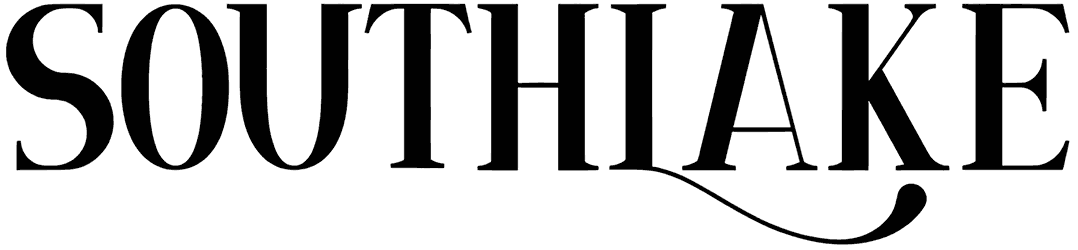
Southlake Font
Today’s introduction will level up your texts! The Southlake font is a file with two fonts in regular and italic styles. This serif font has cutouts and bold characters that will convey a modern look to your text.
You can use Southlake for any gaming texts and headlines, formal product designs, personal blog banners, movie titles, and business event flyers. This font is only available in capital forms, and its numeral and punctuational set is not included.